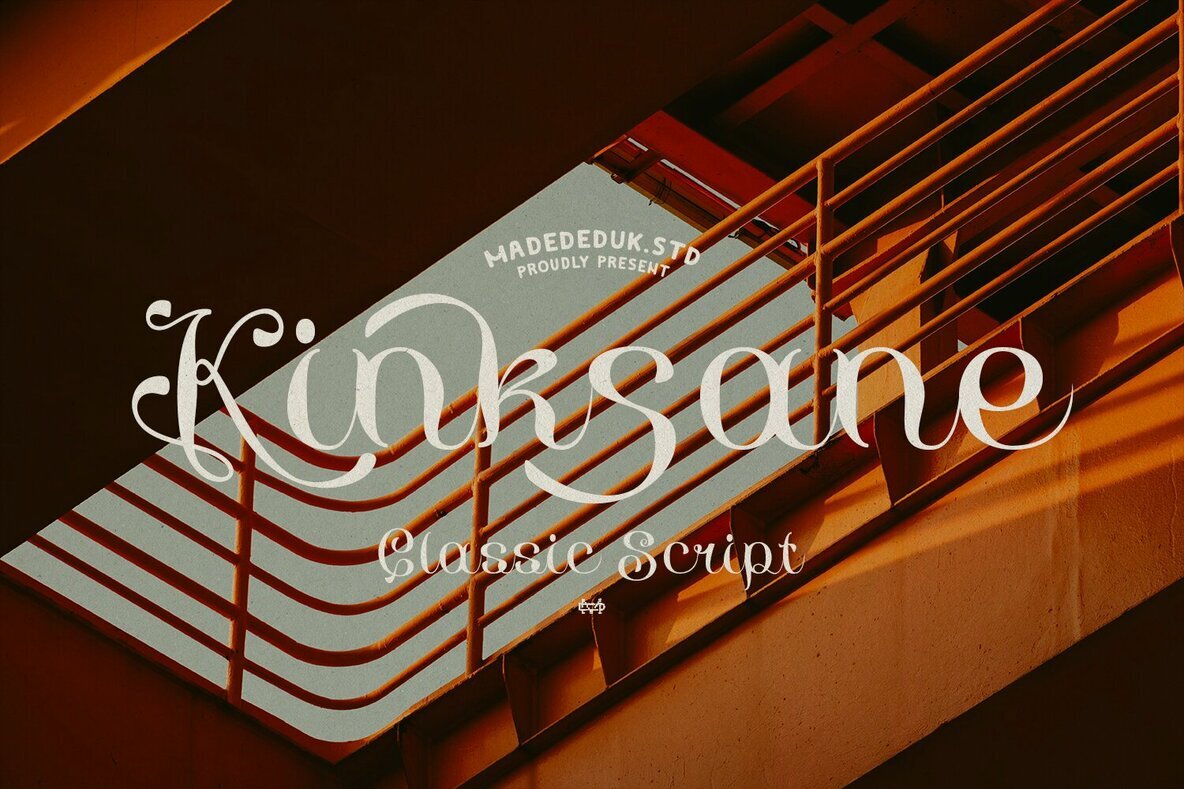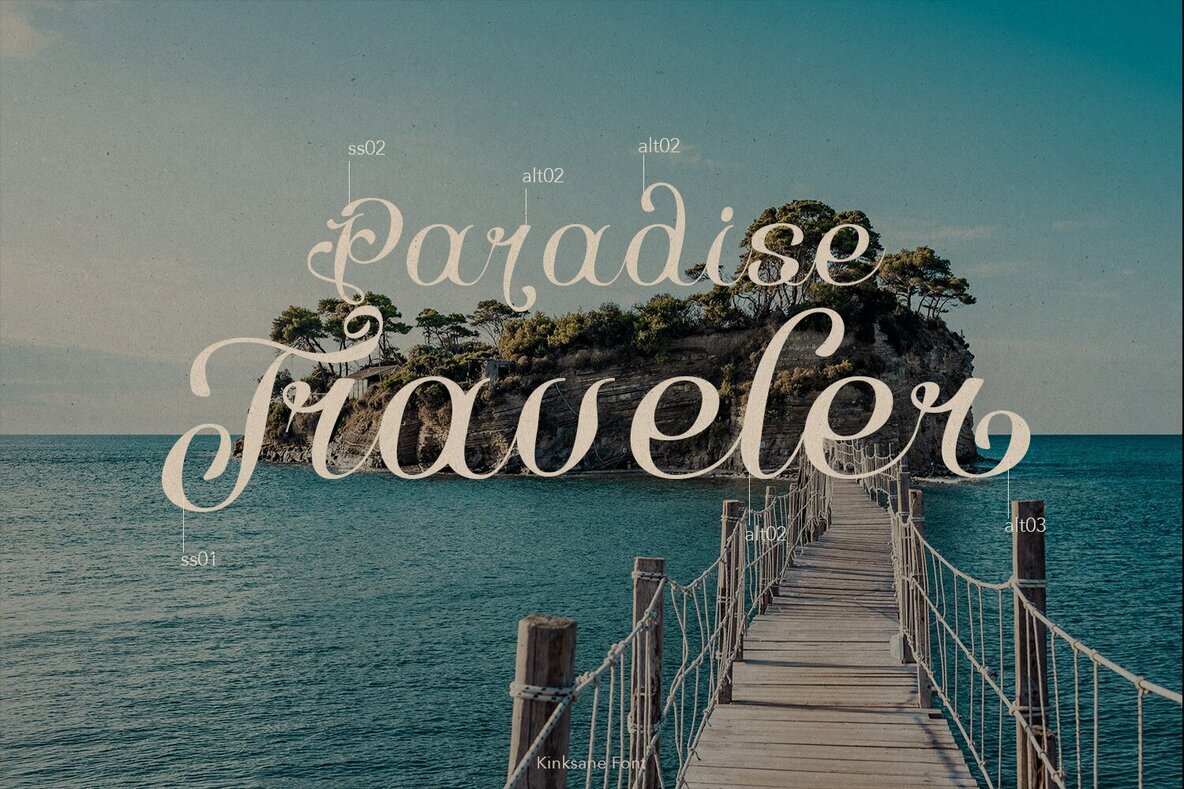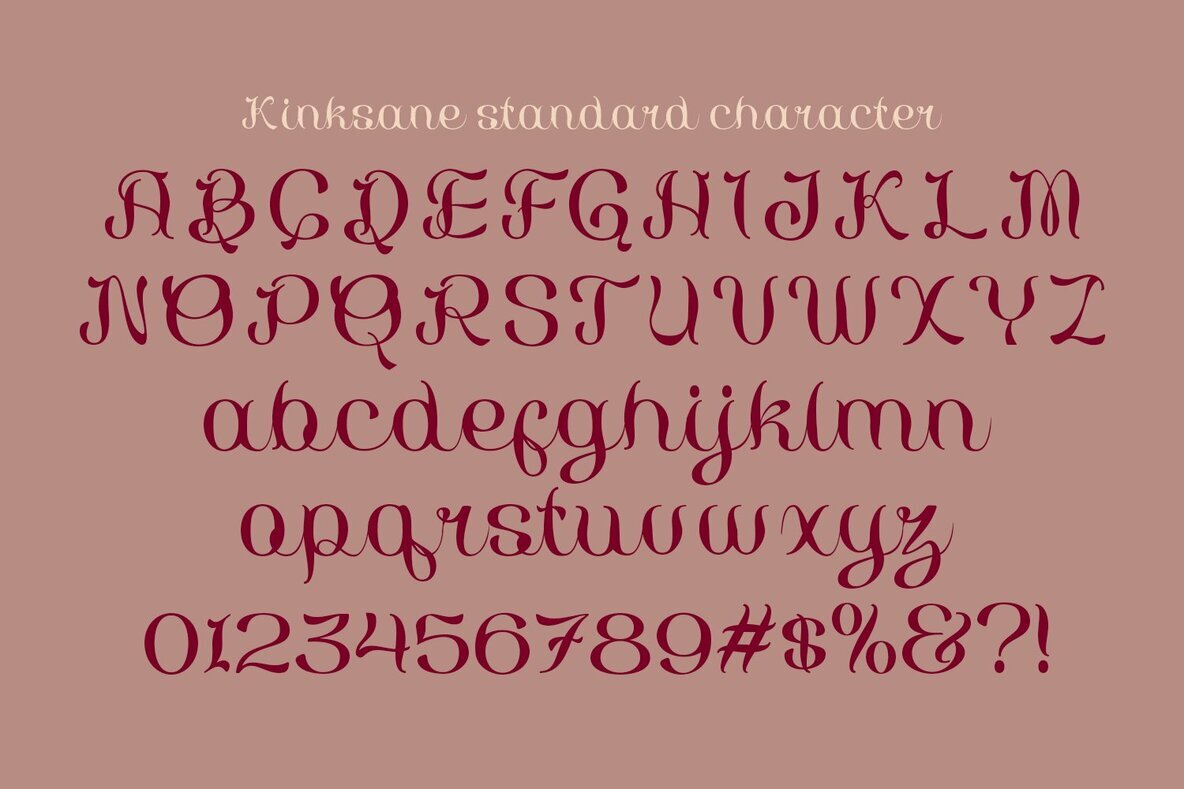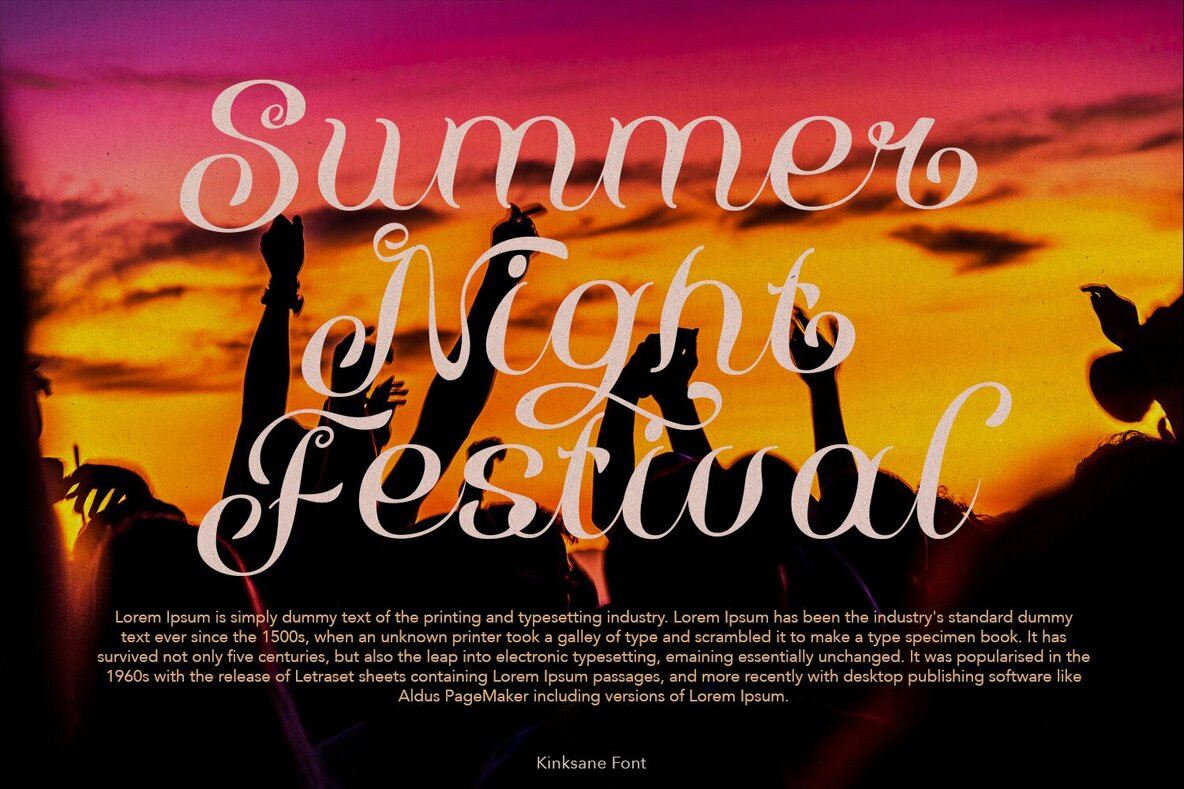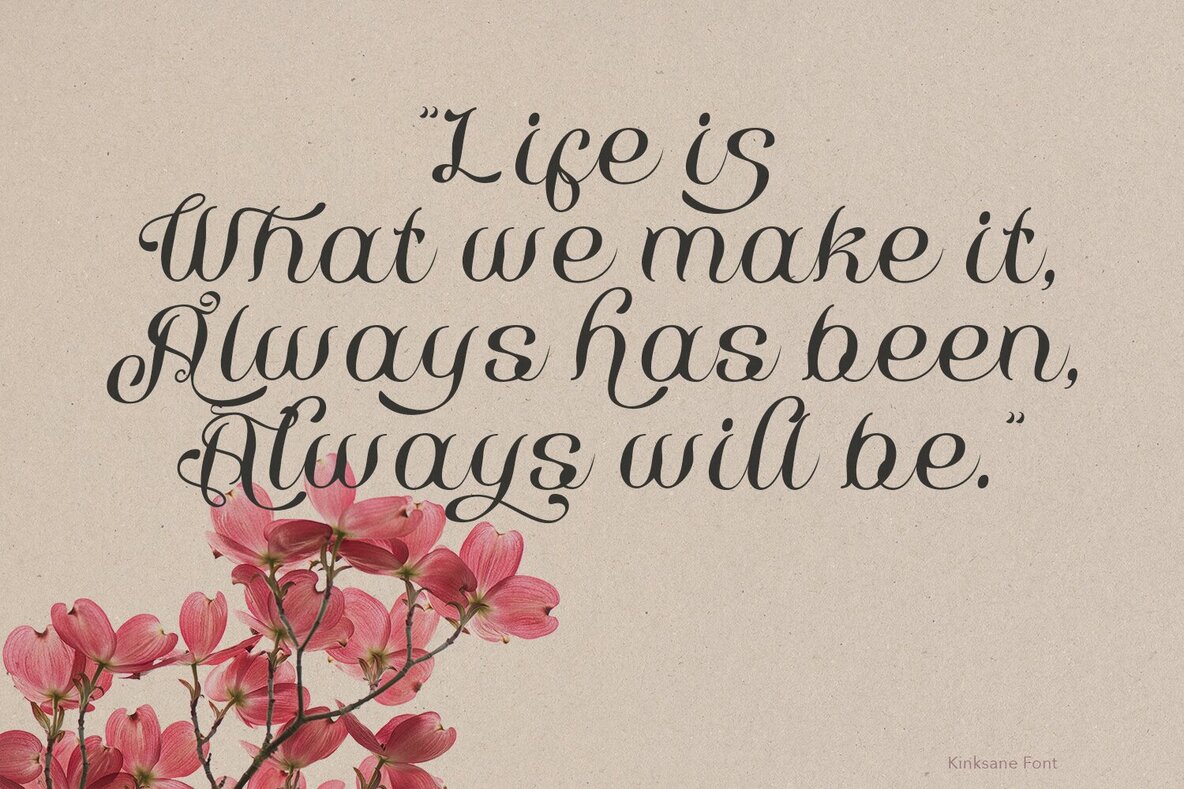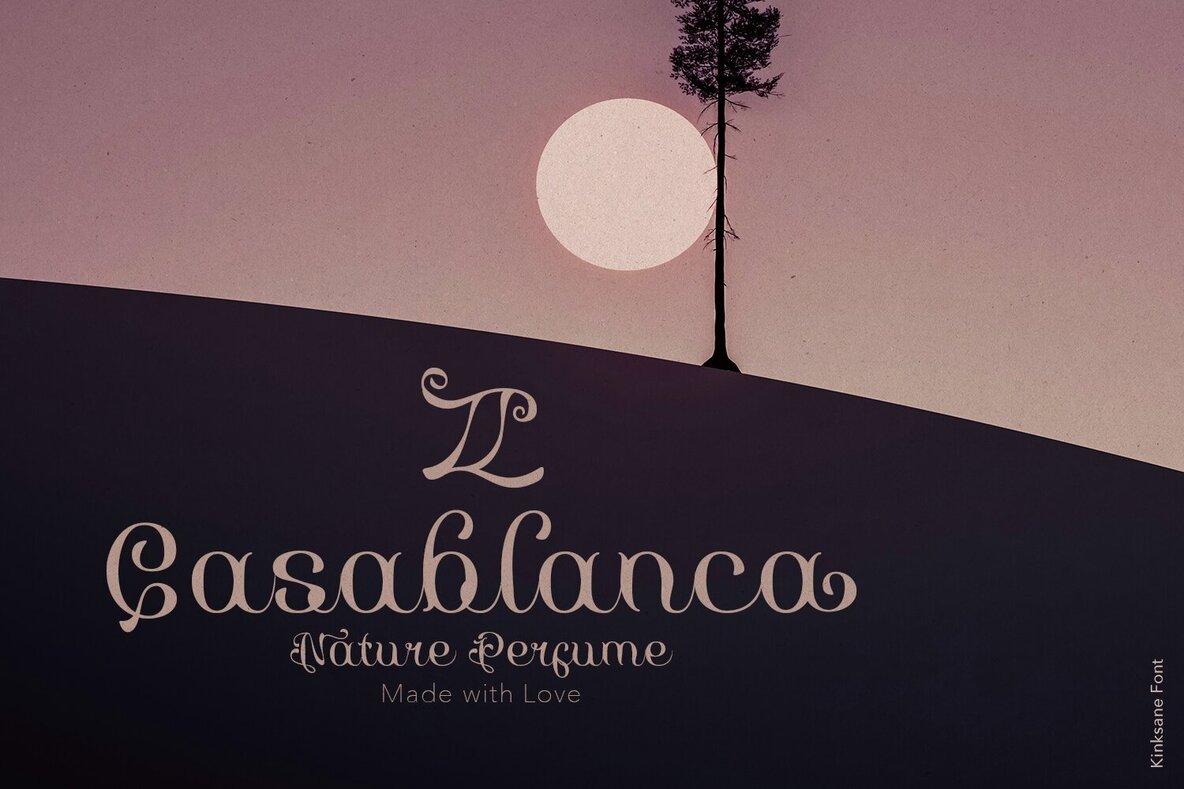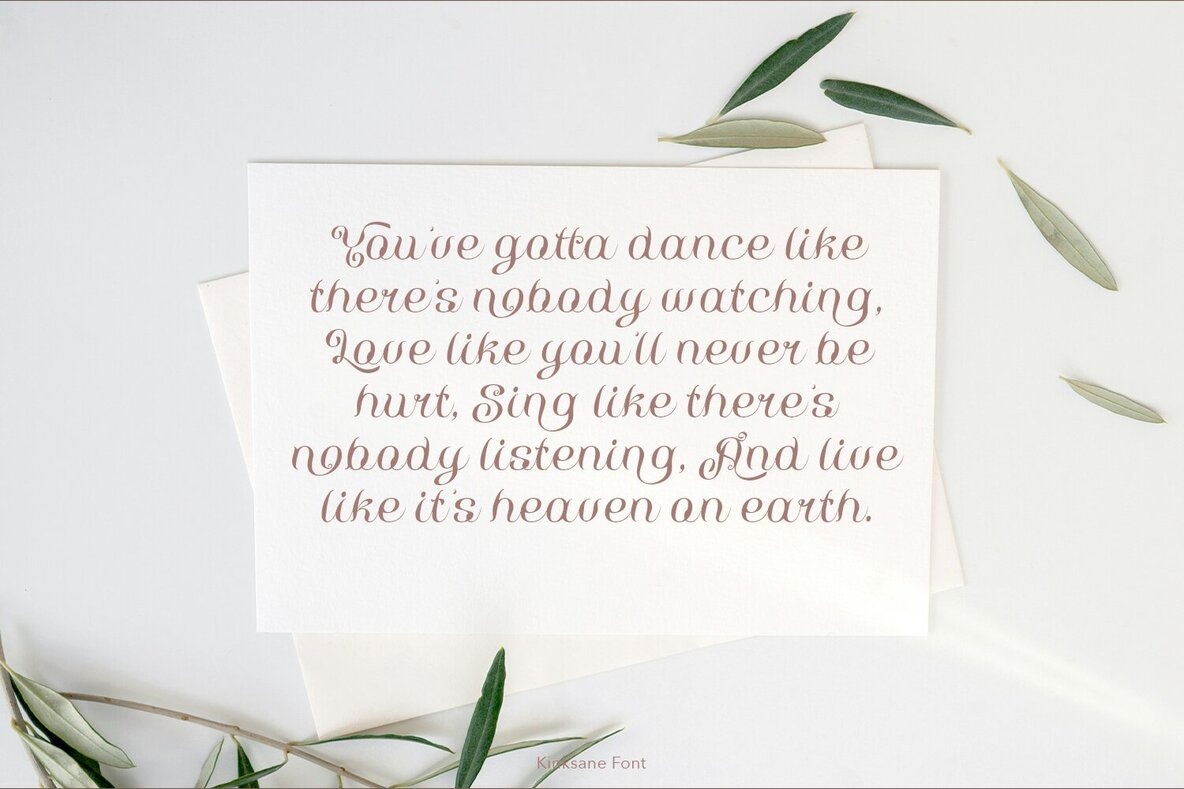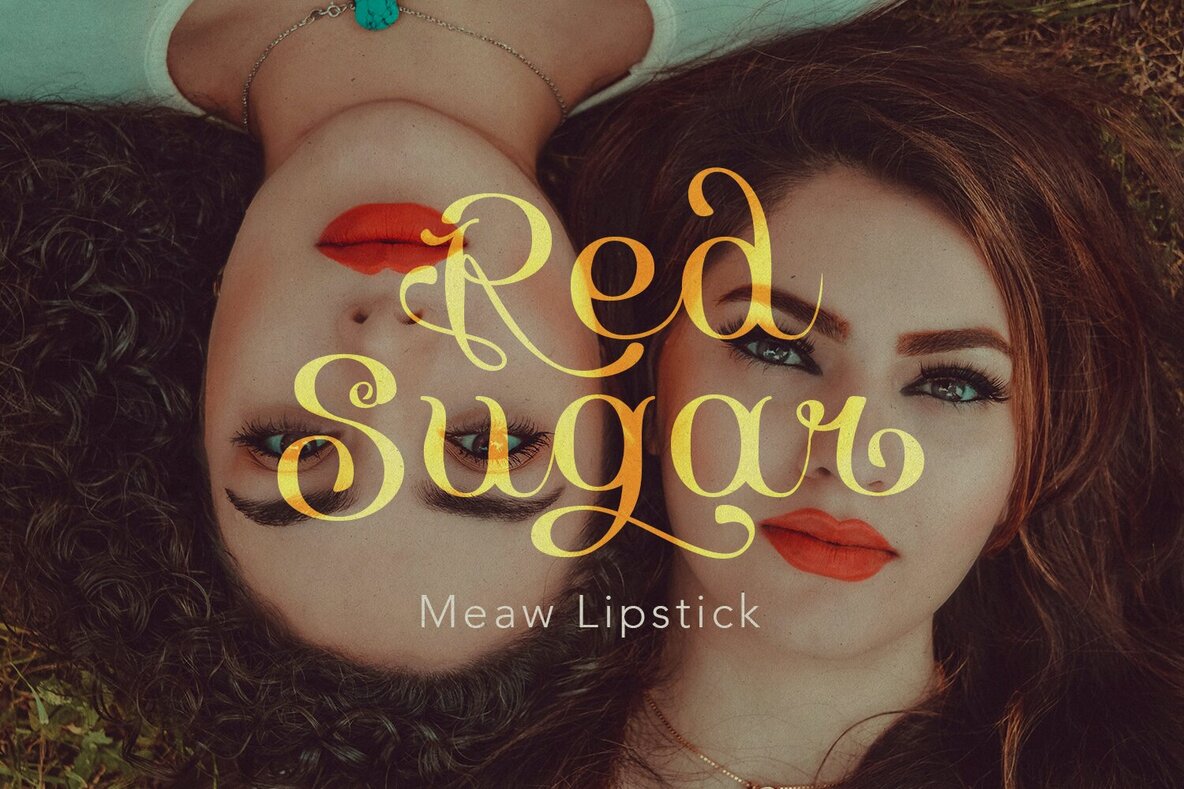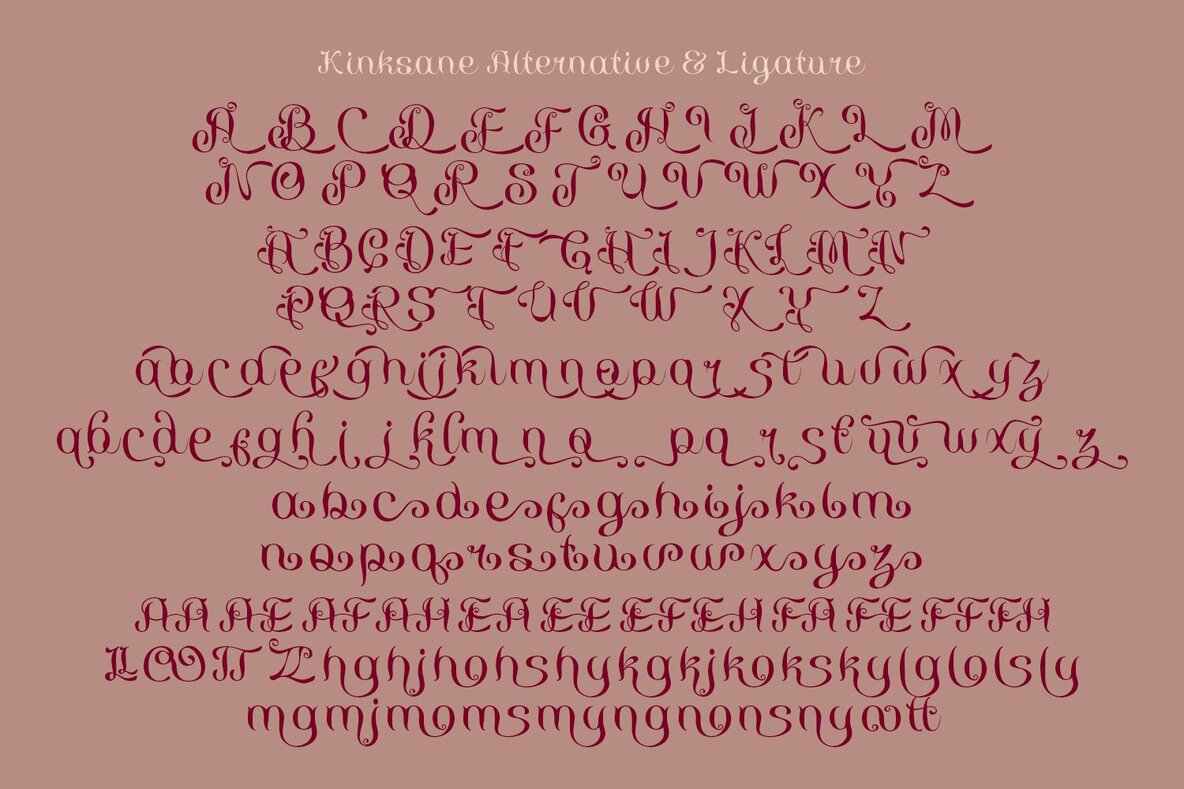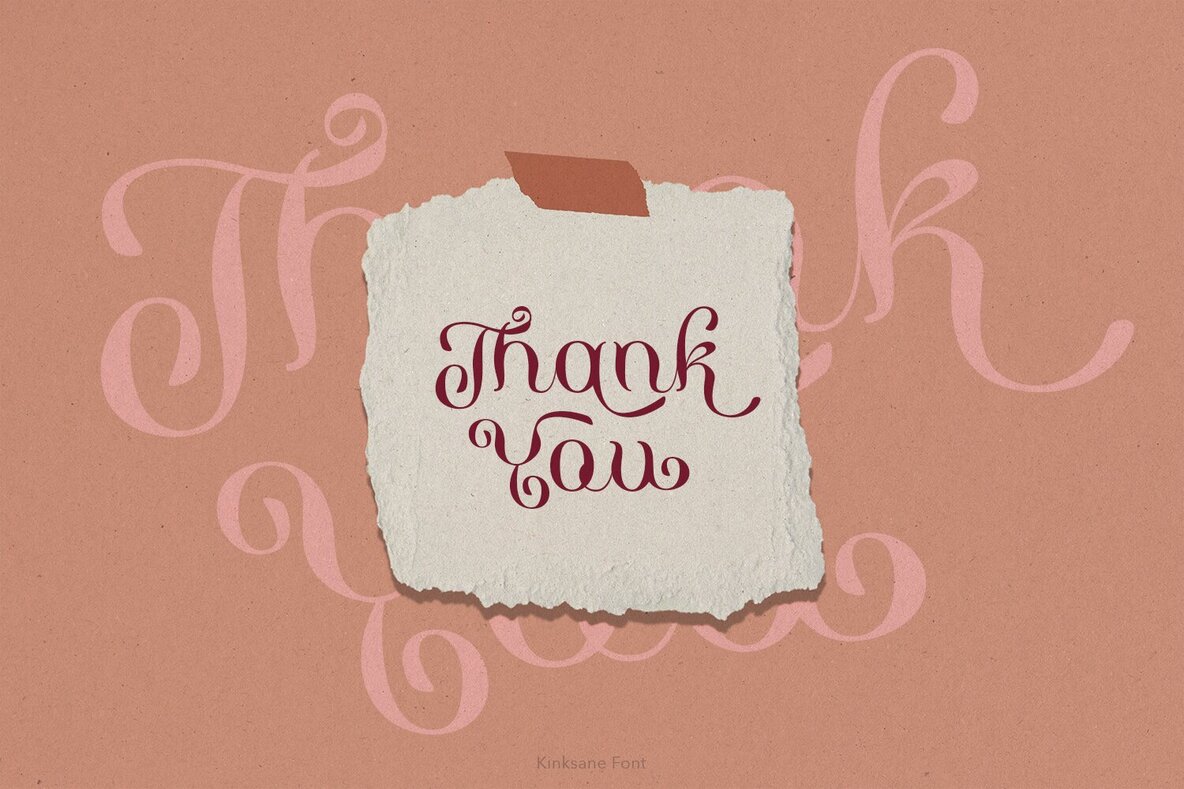
Kinksane Font
Discover the charm of Kinksane, a classic script font infused with a curly, playful style. Perfectly suited for adding a modern vintage flair to your design projects, Kinksane comes with a host of alternatives and ligatures to offer versatile customization. Whether you are working on book covers, logos, or product labels, this font effortlessly complements a variety of aesthetic needs.Kinksane Script Font